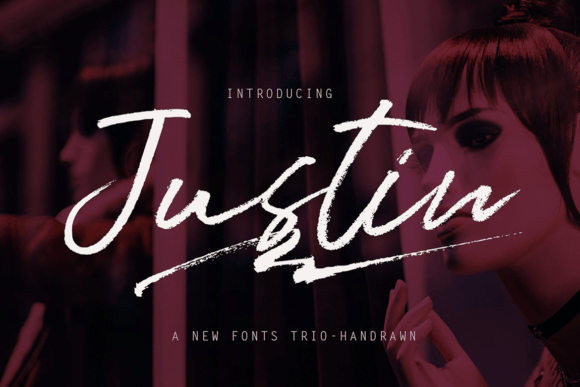
Justin Trio: A Designer’s Honest Review
When a new script font lands on my desk, I do not just look at the letterforms. I look for personality, rhythm, and usability. Justin Trio is not just another decorative typeface; it is a carefully crafted tool that bridges the gap between casual handwriting and professional polish. As a designer who has spent years refining brand identity systems, I approach every new asset with skepticism. However, after putting Justin Trio through its paces in real-world scenarios, I found it to be a versatile addition to any creative library.
The First Impression: Mood and Personality
The moment you type out a word with Justin Trio, you notice the flow. It does not feel rigid or mechanical. Instead, it carries the warmth of a handwritten font while maintaining the structural integrity required for commercial use. The strokes have a natural variation in weight, suggesting the pressure of a pen or brush without becoming messy. This balance creates a mood that is inviting, authentic, and slightly nostalgic.
For brand owners and marketers, this visual personality is crucial. In a digital landscape saturated with clean, cold sans serif font styles, a typeface like Justin Trio offers a human touch. It feels approachable. It suggests that there is a person behind the business, not just a corporation. This is why it works exceptionally well for businesses that rely on trust and personal connection, such as boutique shops, artisanal food brands, and lifestyle coaches.
Performance in Real-World Design Projects
A font might look beautiful in a specimen sheet, but how does it perform in actual client work? I tested Justin Trio across various mediums to see where it shines and where it struggles.
Logo Design and Brand Identity
In logo design, Justin Trio excels as a primary mark for small businesses. Its ligatures connect smoothly, creating a cohesive unit rather than disjointed letters. I used it for a local bakery’s rebrand, pairing it with a sturdy serif font for the tagline. The contrast was striking. The script provided elegance, while the serif grounded the design. For brand identity packages, this font adds a layer of sophistication that feels premium without being pretentious.
Packaging and Product Labels
Packaging design demands readability at a glance. Justin Trio holds up well on product labels, especially for items like candles, soaps, and gourmet foods. The curves are open enough to remain legible even when printed on textured paper. When designing for printable design products, such as wedding invitations or greeting cards, the font’s delicate details shine. It adds a celebratory feel that standard fonts simply cannot match.
Digital Presence and Social Media
In the realm of web design and social media graphics, Justin Trio serves as an excellent accent. I recommend using it for headers, quotes, or call-to-action buttons rather than body text. On Instagram or Pinterest, where visual appeal drives engagement, this font stops the scroll. It works beautifully in Canva templates for bloggers and content creators who want to elevate their aesthetic. Whether you are creating digital ads or blog graphics, the font adds a layer of modern typography that feels current yet timeless.
Strategic Usage: Where to Be Careful
While Justin Trio is versatile, it is not a universal solution. As a display font, it demands space. Using it for long paragraphs will fatigue the reader’s eye. I advise limiting its use to headlines, short phrases, and decorative accents. In editorial design, it works best for pull quotes or chapter headings, allowing the main text to remain in a highly readable serif or sans serif style.
Additionally, consider the scale. At very small sizes, the intricate connections between letters may blur. Always test your designs in black and white first to ensure the contrast is sufficient. If you are designing for merchandise or large-format posters, the font scales beautifully, but for tiny footnotes or legal disclaimers, stick to a neutral typeface.
Practical Designer Notes for Best Results
To get the most out of Justin Trio from Script Amp, follow these practical steps during your design process:
- Test Pairings: Try Justin Trio beside a clean sans serif font for a modern look, or a classic serif font for a traditional vibe. Avoid pairing it with other complex scripts, as this creates visual clutter.
- Check Spacing: While the default kerning is good, always adjust tracking for specific words. Some letter combinations may need slight tweaking to maintain optical balance.
- Mockup Reality: Do not judge the font only on screen. Place it on real mockups, such as coffee cups, business cards, or website headers. This helps you gauge its impact in context.
Impact on Brand Perception
Final Verdict
Justin Trio is a reliable, elegant, and functional typeface. It is not just a pretty face; it is a workhorse for designers who need a script that performs. Whether you are working on packaging design, social media campaigns, or a complete brand overhaul, this font delivers. It respects the principles of modern typography while offering the charm of handwritten art. If you are looking to add warmth and professionalism to your next project, Justin Trio is a worthy investment.